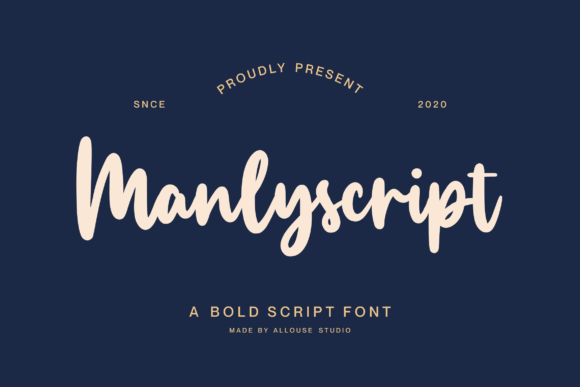
Introducing the Manlyscript Font, an elegant and sophisticated script font that exudes charm and personality. Its relaxed and stylish handwritten design adds a touch of individuality and warmth to your digital creations. Manlyscript is perfect for adding a personal touch to your writing, whether you're designing invitations, greeting cards, social media posts, or website content.
With its beautiful flowing lines and playful curves, this font captivates the eye and makes your words come alive. Its Latin-based characters are easy to read and understand, making it a versatile choice for a wide range of projects.
Whether you're a professional designer or simply someone who enjoys adding a creative touch to their digital projects, Manlyscript is the perfect font for you. Its versatility and charm make it a must-have in any font collection.